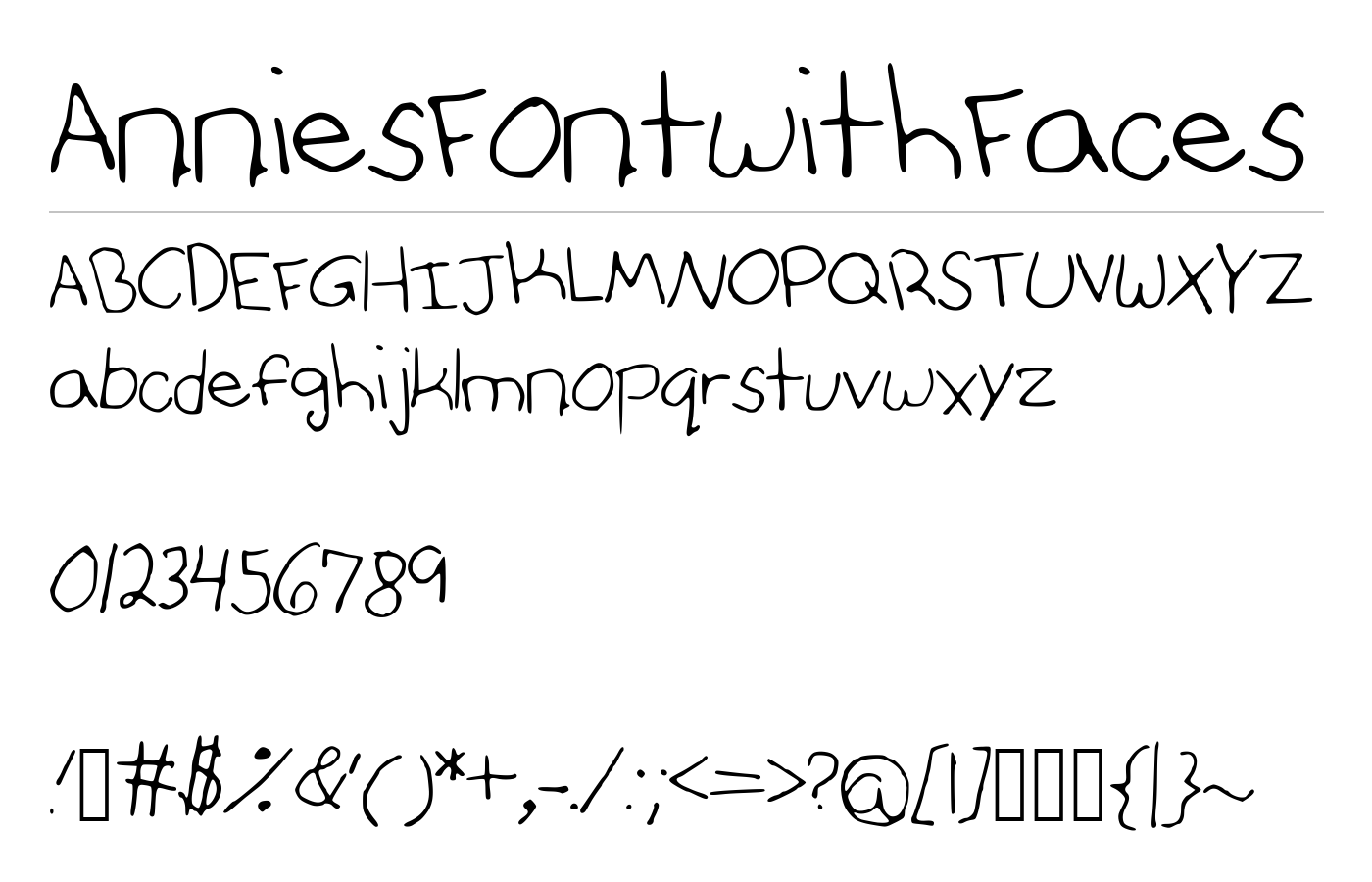
AnniesFontwithFaces is a playful, informal handwritten sans serif font with a light weight and casual, uneven strokes that give it a whimsical, childlike charm. Its tall, narrow letterforms with low contrast and quirky details make it perfect for fun, friendly projects such as kids’ books, greeting cards, or creative branding that wants to convey warmth and approachability. This font works best in headlines or short text where its unique personality can shine without sacrificing readability.